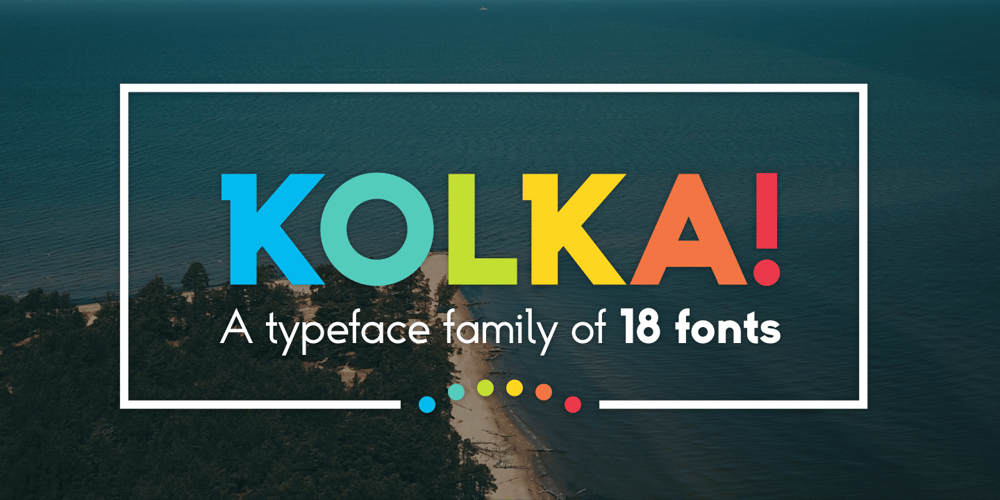
Kolka Font Family was designed by Andrejs Kirma and published by Andrejs Kirma. Kolka contains 17 styles and family package options. Kolka is the second typeface family by Andrejs Kirma. Coming from the background of making icons for stock, the ethos of staying true to the geometric shapes and visual simplicity has never left his mind.While there are plenty of modern geometric typefaces out there that are easy to read in small sizes yet have distinct characteristics, the subtle horizontal accents on some of the key letters will refresh even this well established typographic style.